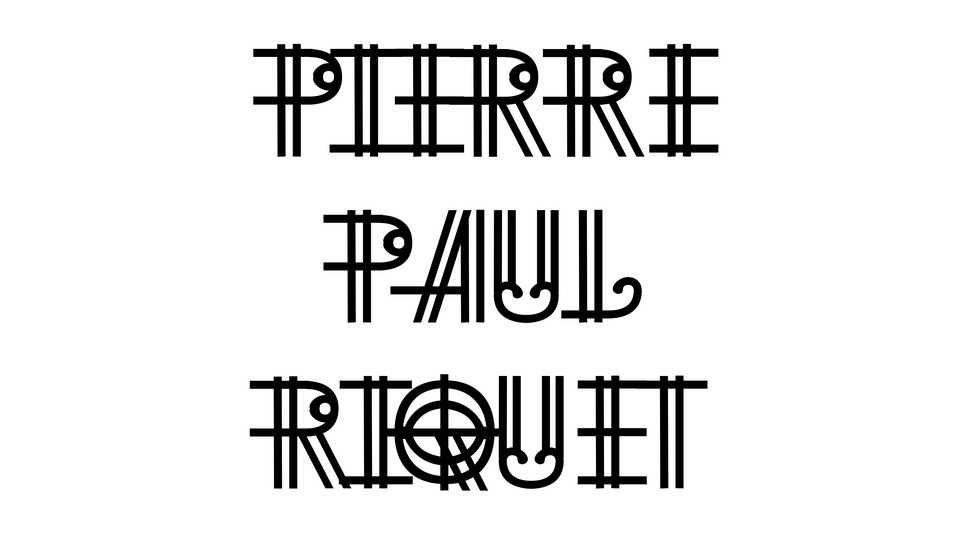
Download RandomWiki 1681 font, a display typeface based on a randomly selected Wikipedia article and inspired by 1681 en science. RandomWiki 1681 was created during a type design initiation workshop given by Lucas Descroix in February 2023.
Designer: Bonjour Monde